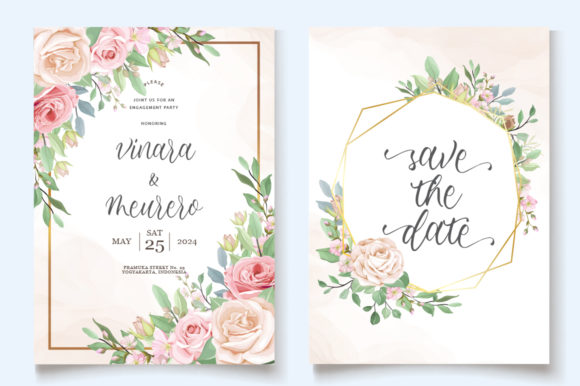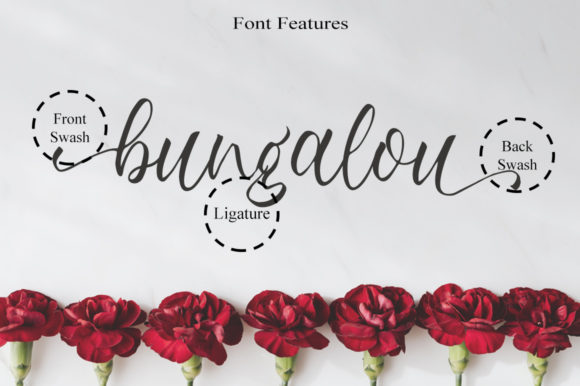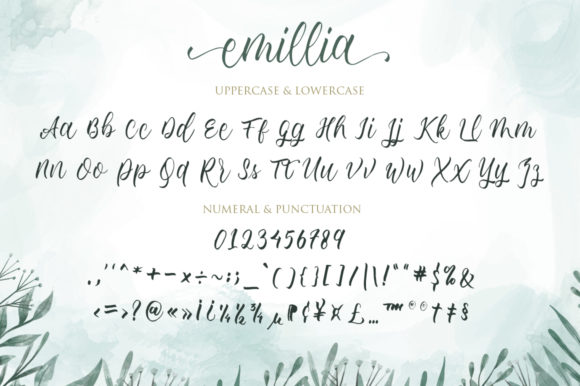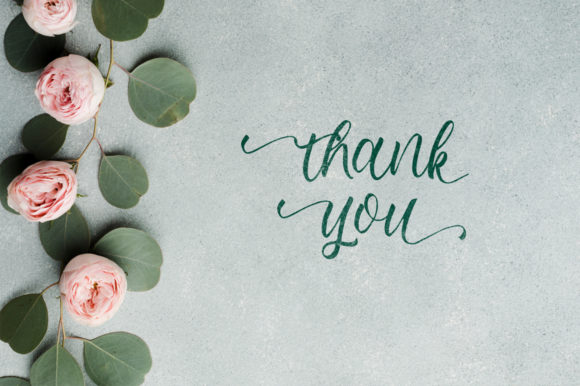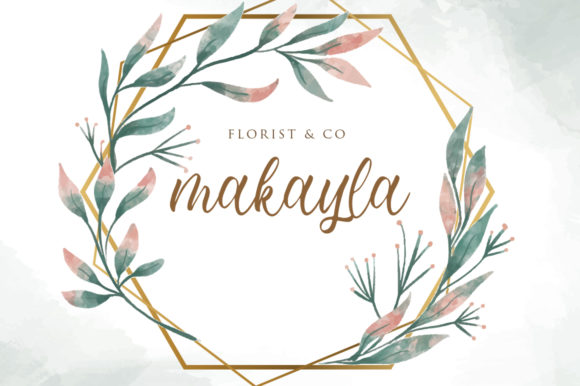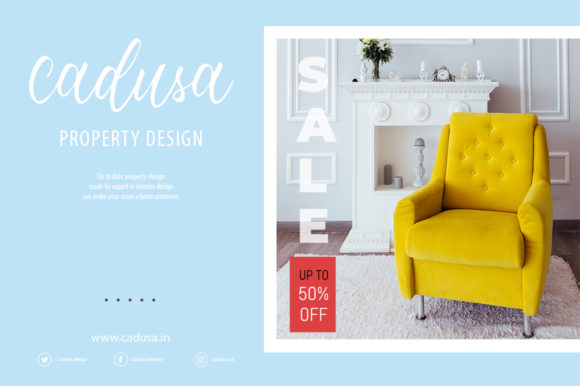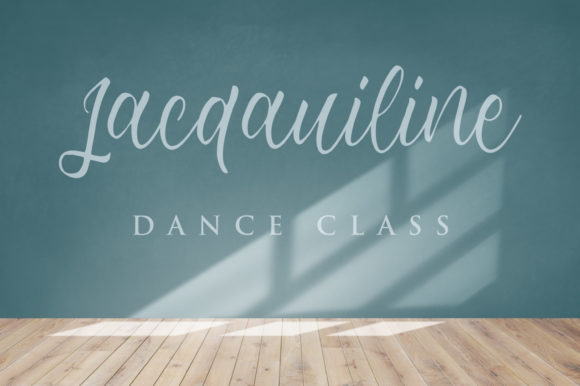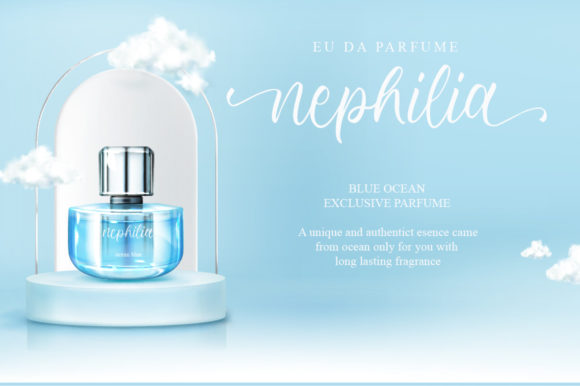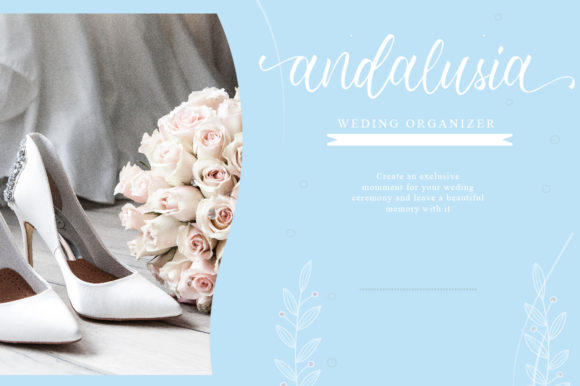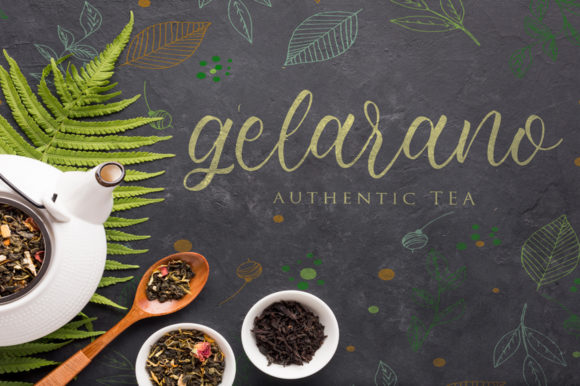
Emillia Font
About Emillia Font
Emillia is a font that exudes beauty and elegance in its stunning handwritten style. Prepare to be captivated by its completely different and timeless appeal, as it becomes a font that you’ll undoubtedly fall in love with. Emillia’s versatility opens the door to creating spectacular designs that leave a lasting impression on all who behold them.
With its unique and timeless style, Emillia stands out from the crowd, making it a font that adds a touch of individuality and sophistication to your designs. Whether you’re working on invitations, branding, quotes, or any creative project, Emillia infuses each piece with a sense of grace and beauty.
The handwritten charm of Emillia brings a personal and authentic touch to your work, creating a connection with your audience that resonates deeply. Its flowing and well-crafted letters form a harmonious visual rhythm, making your designs truly stand out.
The PUA encoding in Emillia unlocks a world of creative possibilities. With ease of access to all the glyphs and swashes, you have the freedom to customize and personalize your designs, making them truly one-of-a-kind.
Embrace the beauty of Emillia and experience how it elevates your designs to new levels of elegance and visual appeal. Its timeless style ensures that your work remains relevant and impactful, standing the test of time.
Discover the joy of creating with Emillia as your creative companion. Let its beauty and elegance be the driving force behind your most imaginative projects, bringing them to life with a touch of sophistication.
Whether you’re designing for personal or professional purposes, Emillia is the font that adds that extra touch of charm and allure to your creations. Fall in love with Emillia and let it be the font that sparks your creativity and brings your artistic vision to life. Experience the magic of Emillia and witness how it transforms your designs into spectacular works of art that capture the hearts of all who encounter them.